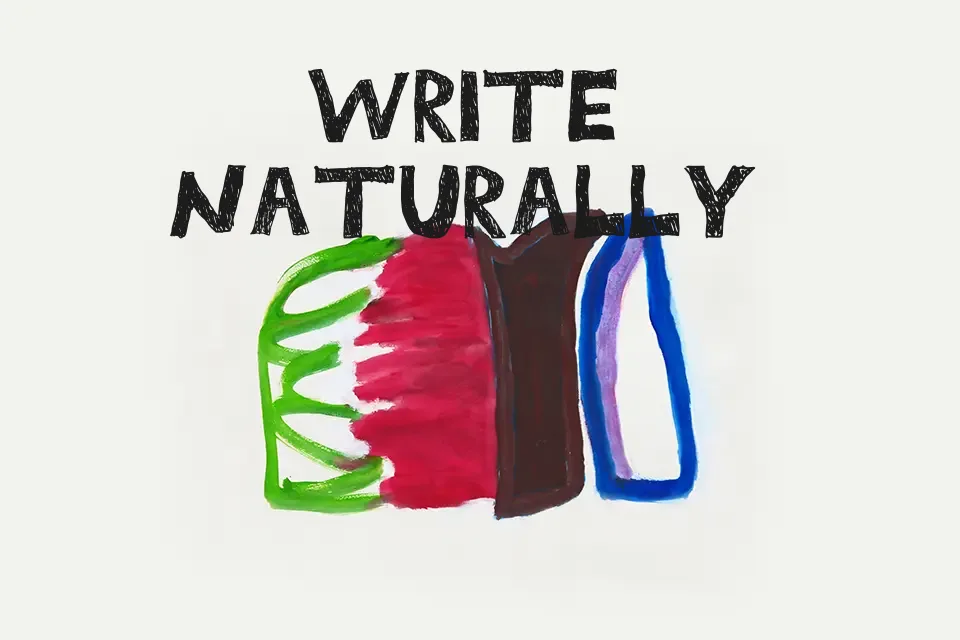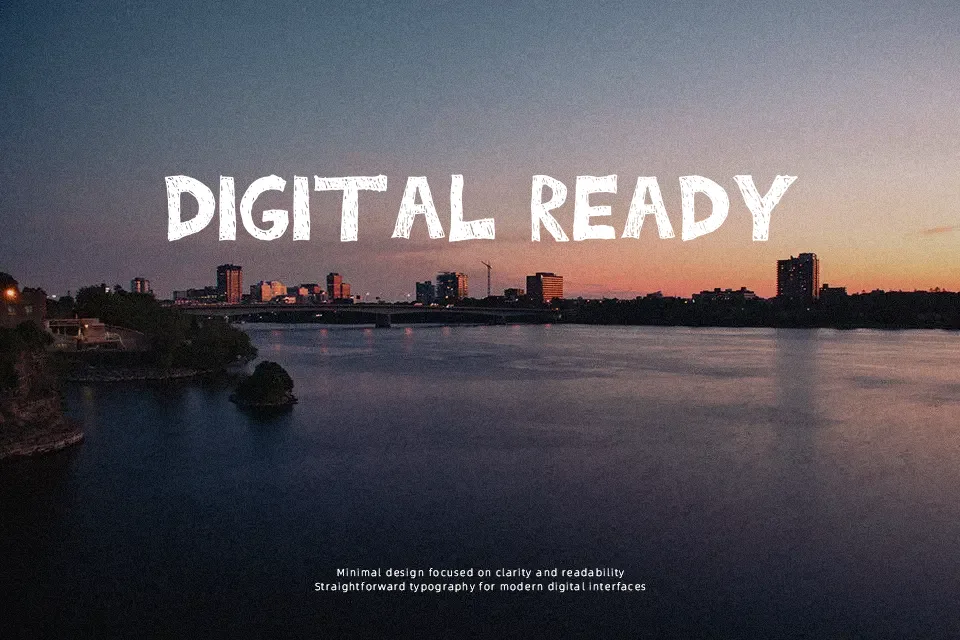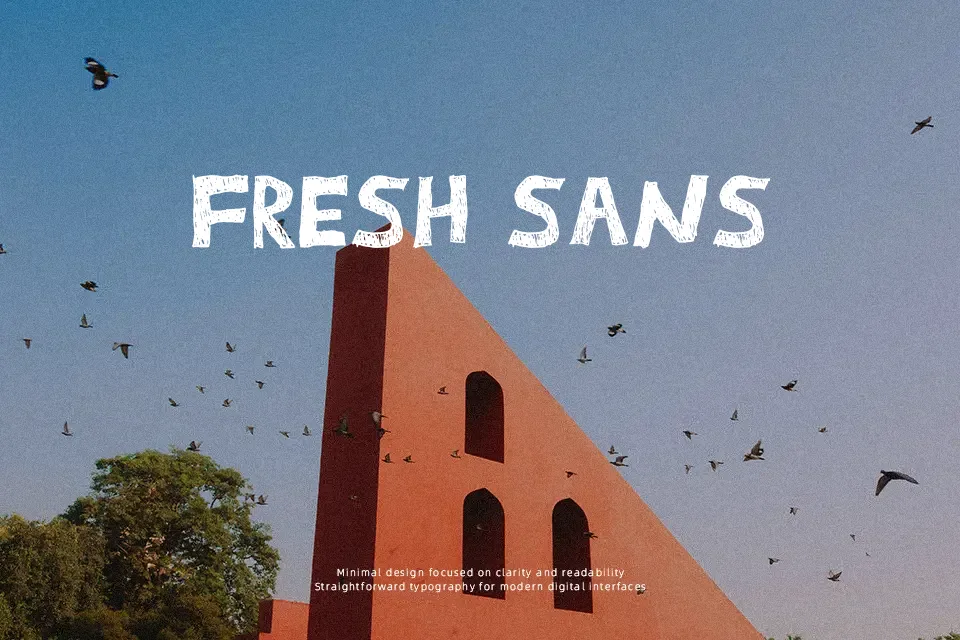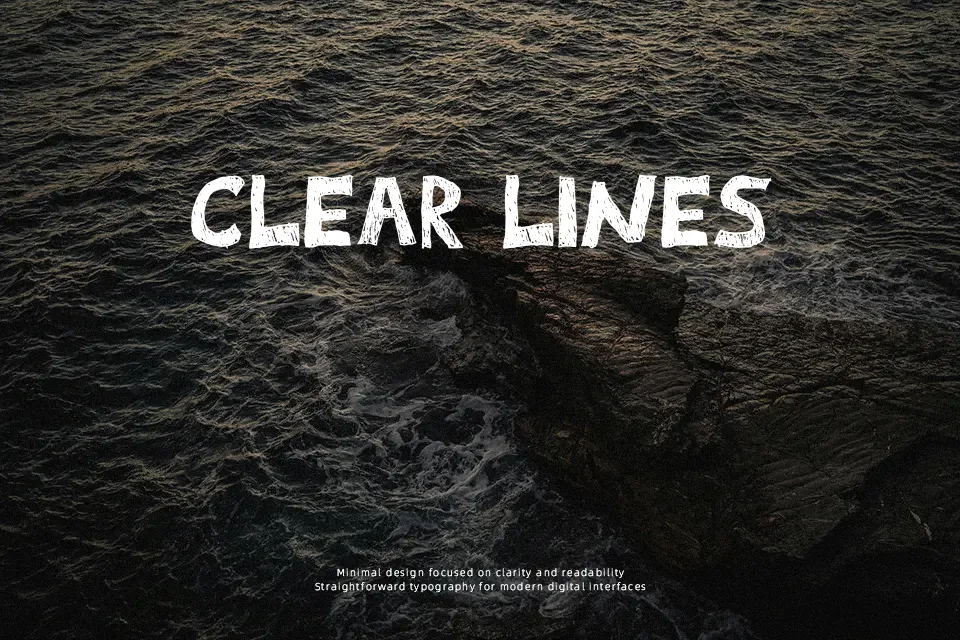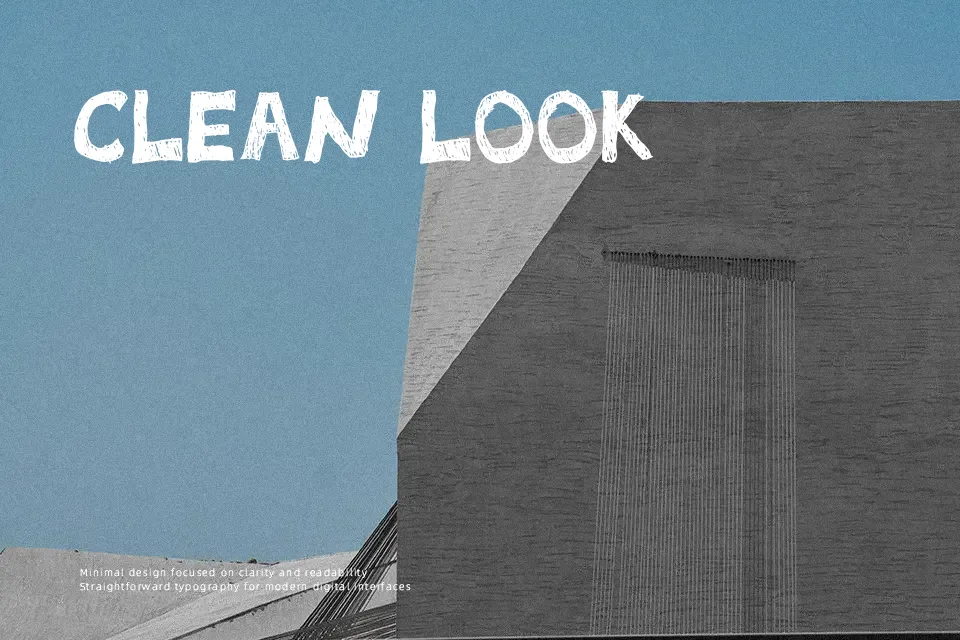
Childhood Font
Childhood Font is a bold display typeface defined by exaggerated stroke weights, soft organic contours, and a dynamic baseline. Each glyph exhibits uneven character widths and tight default tracking, producing a lively rhythm suited for children’s book covers, party invitations, and casual mobile game interfaces. The heavy fills and rounded terminal shapes provide strong contrast against busy backgrounds. However, dense paragraphs and reduced scale quickly degrade legibility due to the enclosed counters and heavy blackness. For maximum visual clarity, the typeface performs best in short headlines and standalone callouts where the playful silhouettes can breathe naturally.
Best For: children’s book covers,animated title cards,toy packaging labels,party event flyers
Not Ideal For: long-form editorial text,small mobile captions,technical documentation,formal corporate reports
Perfect for branding, headline, and kids, with a bold and cartoon style.